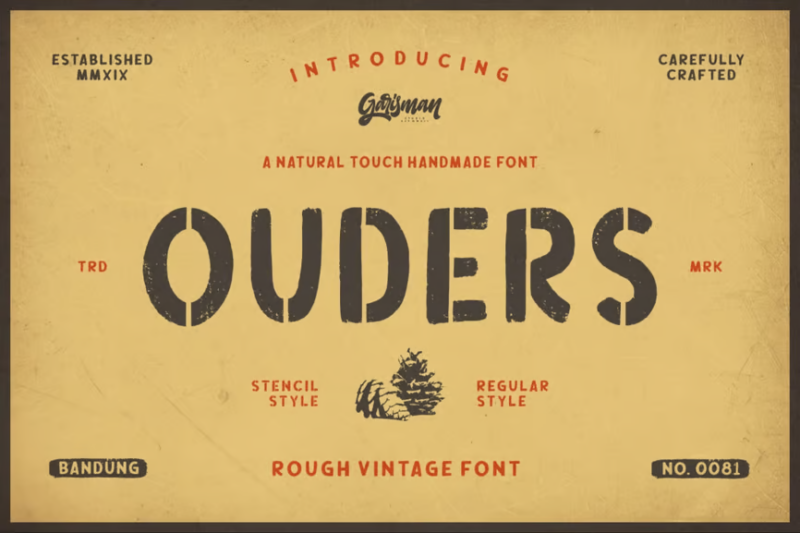
As designers, we’re constantly seeking typefaces that make our work stand out from the crowd. And when it comes to creating designs with industrial strength, military precision, or urban edge, stencil fonts are the undisputed champions of the design world.
Stencil fonts are characterized by their broken letterforms – those iconic gaps that mimic the bridges in physical stencils used for spray painting or quick reproduction. These distinctive breaks aren’t just practical in real-world applications; they’ve become a powerful visual shorthand for authority, strength, and authenticity in graphic design.
In this comprehensive guide, I’ll be exploring the best stencil fonts to try in 2026. We’ll dive into:
- What makes a great stencil font (beyond just those iconic gaps)
- When and where to use stencil fonts for maximum impact
- How to pair stencil fonts with complementary typefaces
- The most versatile stencil fonts for various design applications
- And much more. Let’s march forward!
The Most Commanding Stencil Fonts of the year
Not all stencil fonts deliver the same punch. I’ve curated a list of the most impressive stencil typefaces that deserve a spot in your design arsenal this year:
Peligro Stencil
Peligro Stencil is a bold sans-serif font with a military-inspired stencil design. Its sharp edges and strong presence make it ideal for attention-grabbing headlines, logos, and designs that require a powerful, authoritative feel.
Pawer Stencil
Pawer Stencil is a decorative sans-serif font that combines display and sans-serif elements. Its unique stencil design offers a modern, edgy look perfect for branding, posters, and digital media where a strong visual impact is desired.
Dollar Stencil
Dollar Stencil is a serif font with a decorative twist, featuring a note-like appearance. This font is excellent for financial-themed designs, currency-inspired graphics, or any project requiring a blend of traditional serif elegance with a modern stencil edge.
LASERCUT – Stencil Display Font
LASERCUT is a unique sans-serif display font with a textured stencil appearance. Its laser-cut aesthetic gives designs an industrial, high-tech feel, making it perfect for modern branding, tech-related projects, or futuristic design concepts.
Fortuner – Stencil Font
Fortuner is a bold serif stencil font with strong display characteristics. Its combination of classic serif elements and modern stencil design makes it versatile for both traditional and contemporary projects, especially in headlines or logo designs.
Overline Stencil
Overline Stencil is a decorative font with a sporty, stamp-like appearance. Its bold, chunky letterforms make it ideal for athletic branding, energetic headlines, or any design requiring a dynamic, powerful presence.
ThirtyNine-Stencil
ThirtyNine-Stencil is a decorative sans-serif font featuring round, stencil-style characters. Its friendly, approachable design makes it suitable for a wide range of applications, from casual branding to playful editorial designs.
Warband Stencil Font
Warband Stencil Font is a sans-serif typeface with a strong military-inspired stencil design. Its bold, authoritative look is perfect for designs related to warfare, action, or any project requiring a tough, assertive typographic voice.
Markton – Modern Stencil Typeface
Markton is a modern stencil typeface that blends sans-serif and serif elements. Its contemporary design with subtle stencil details makes it versatile for both display and body text, suitable for branding, editorial, and digital design projects.
Modest Stencil Sans
Modest Stencil Sans is a hand-crafted sans-serif font with a subtle stencil effect. Its clean, minimalist design with a touch of personality makes it ideal for modern branding, packaging, and designs that require a balance of professionalism and creativity.
Hargetus Futuristic Stencil Typeface
Hargetus is a futuristic stencil typeface with a decorative, stamp-like quality. Its unique, forward-thinking design is perfect for tech-related branding, sci-fi themed projects, or any design that aims to convey innovation and cutting-edge concepts.
Venture Time – a Stencil Typeface
Venture Time is a decorative stencil typeface with geometric influences. Its modern, adventurous design makes it suitable for branding projects, particularly those related to travel, exploration, or outdoor activities, as well as contemporary graphic design work.
Future Soldier – Stencil Font
Future Soldier is a decorative stencil font with a military-inspired design. Its bold, futuristic appearance makes it perfect for sci-fi themed projects, video game designs, or any graphic work that requires a strong, technologically advanced aesthetic.
As you explore the stencil fonts featured in this article, remember that their power comes not just from their broken letterforms, but from the cultural associations and visual strength they bring to your work. Use them thoughtfully, pair them strategically, and watch them transform your designs with their unmistakable presence.